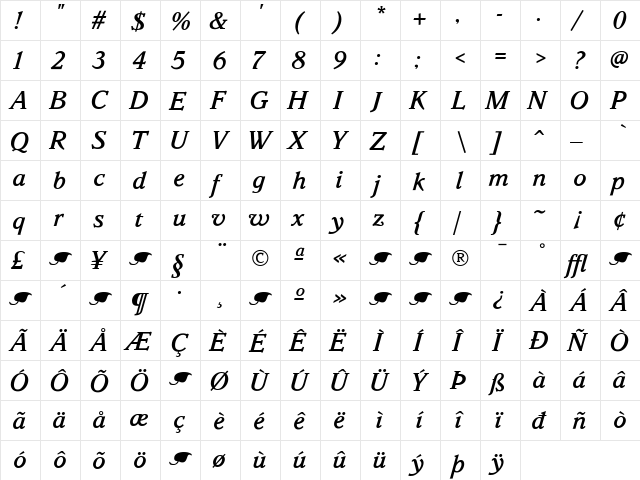
Parkinson Italic
Design Context for Parkinson Typeface
Parkinson takes a measured approach to typography — its balanced proportions and neutral character make it a reliable workhorse for both digital and print work. The slanted form adds forward momentum and visual energy.
Pro Tip: Use Parkinson for emphasis, pull quotes, and subheadings where its slanted energy can add rhythm to the layout.